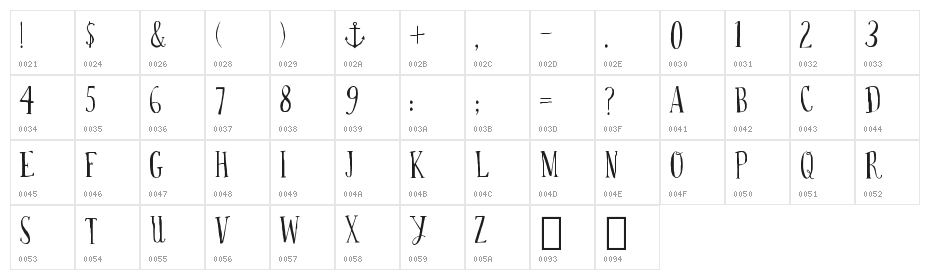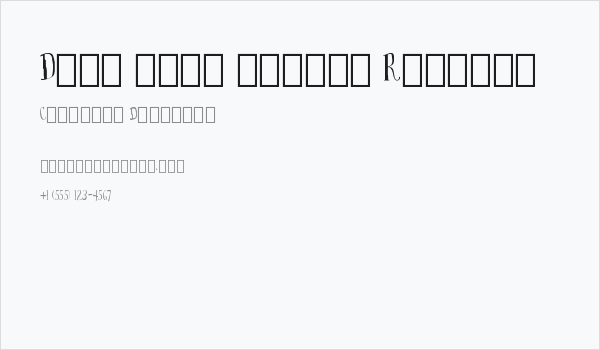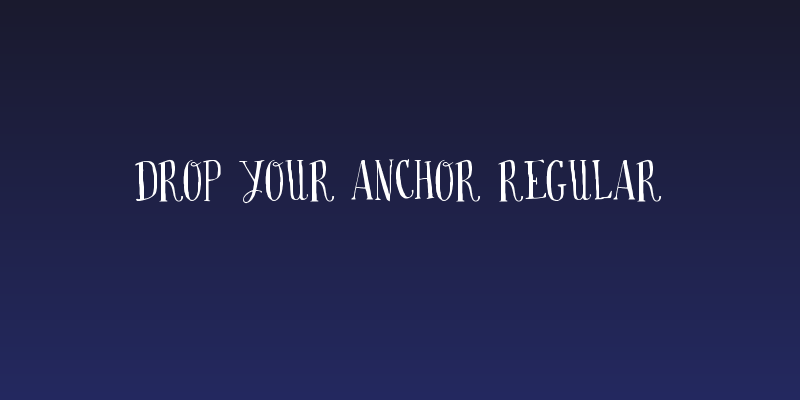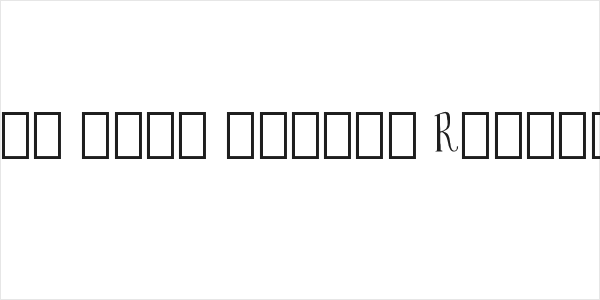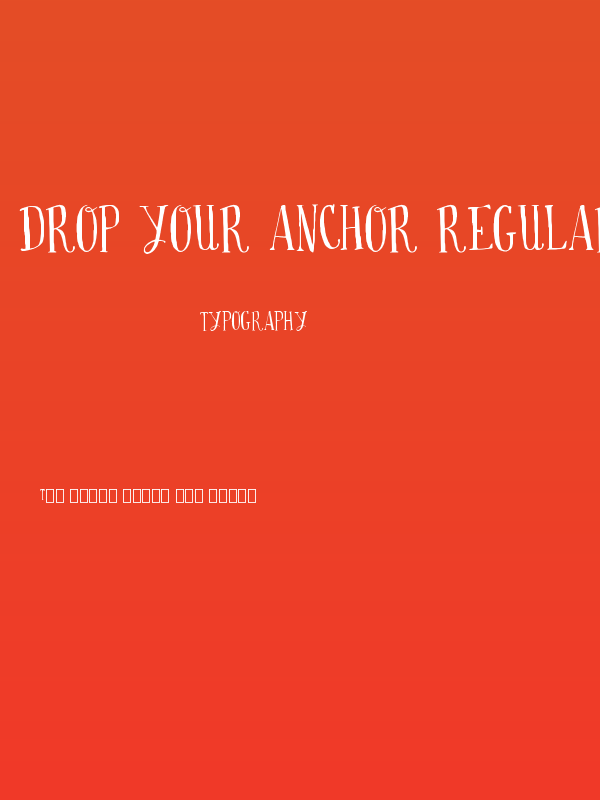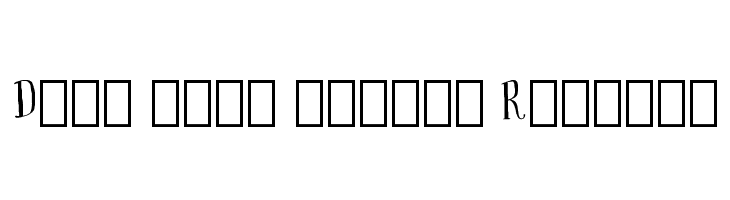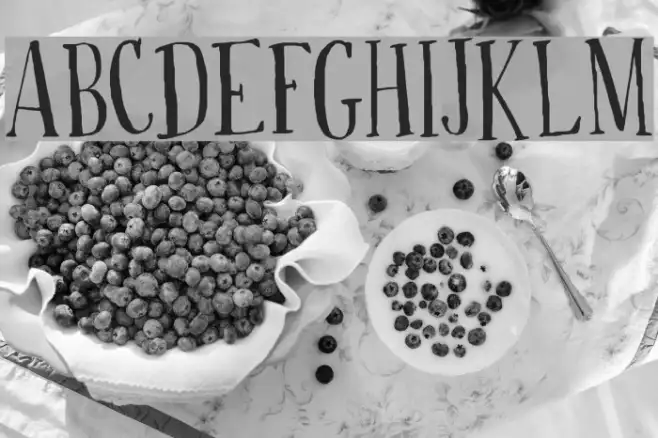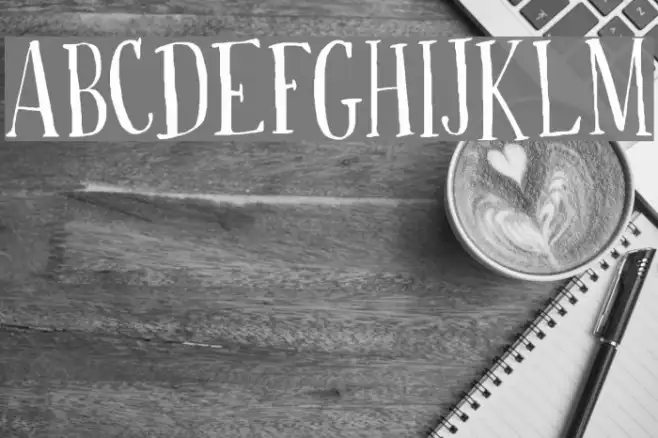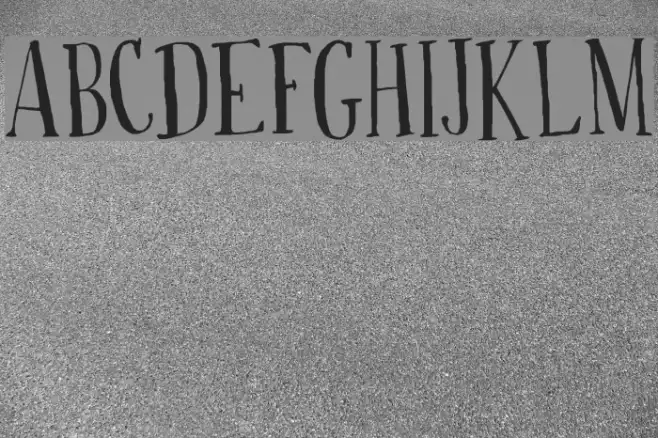
Drop your anchor Regular Font
Drop your anchor Regular Description
This font features a playful and nautical theme, with characters that have a hand-drawn, whimsical quality. The letters are slightly irregular, giving them a unique and artistic flair. The strokes vary in thickness, adding to the font's dynamic and lively appearance. The inclusion of an anchor symbol reinforces the maritime theme, making it ideal for projects related to the sea or adventure. The numbers and special characters maintain the same playful style, ensuring consistency across all text elements.
| Use Case | Headlines, Logos, Themed Events |
| Proposed Projects | Ideal for nautical-themed designs, children's books, adventure branding, and playful invitations. |